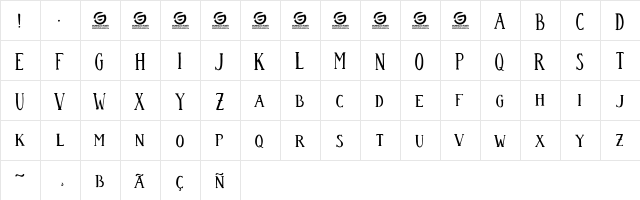
Colombina Personal Use Regular
Design Context for Colombina Personal Use Typeface
Colombina Personal Use is a composed and adaptable typeface that performs quietly and consistently across a wide range of design contexts.